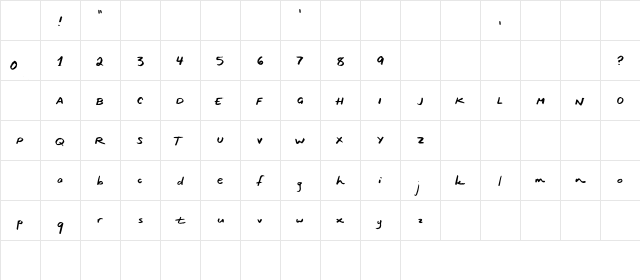
Complete Ocean Coastlines Regular glyph index. Displaying only characters natively supported by Ocean Coastlines Regular font.
Ocean Coastlines is a composed and adaptable typeface that performs quietly and consistently across a wide range of design contexts.